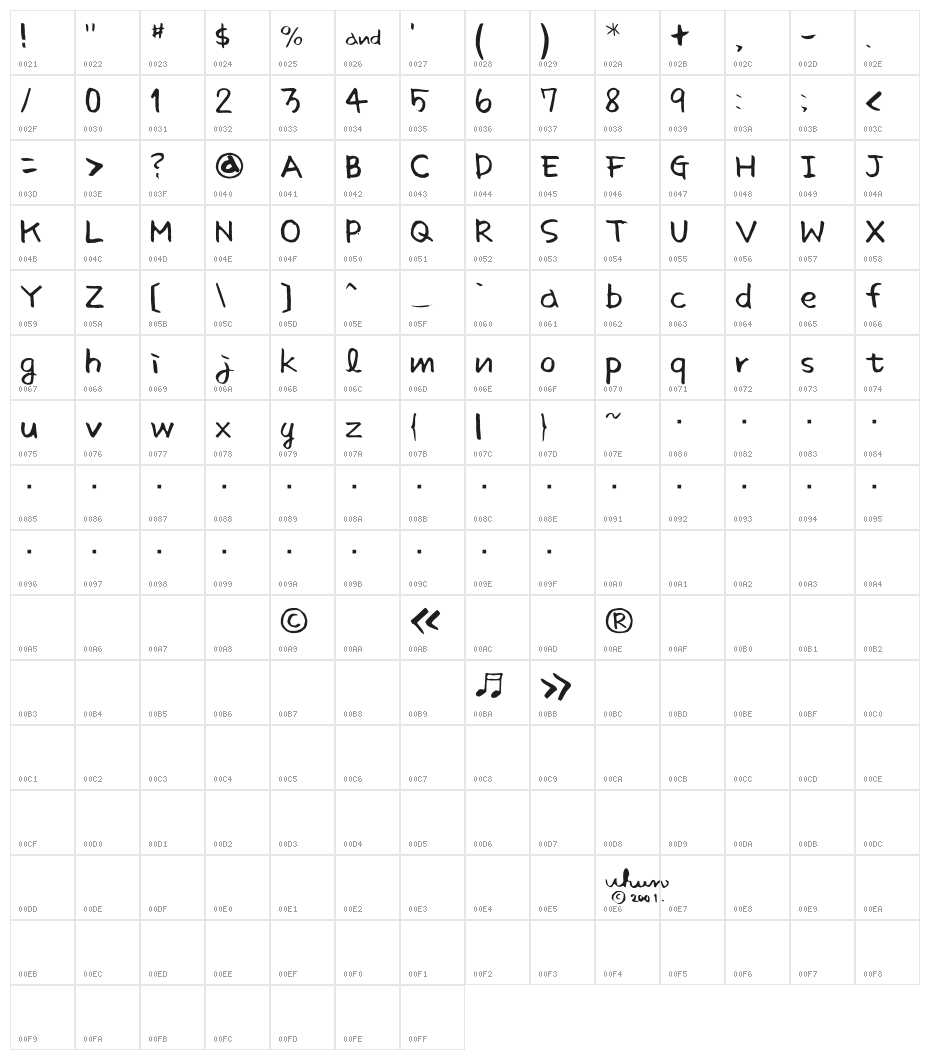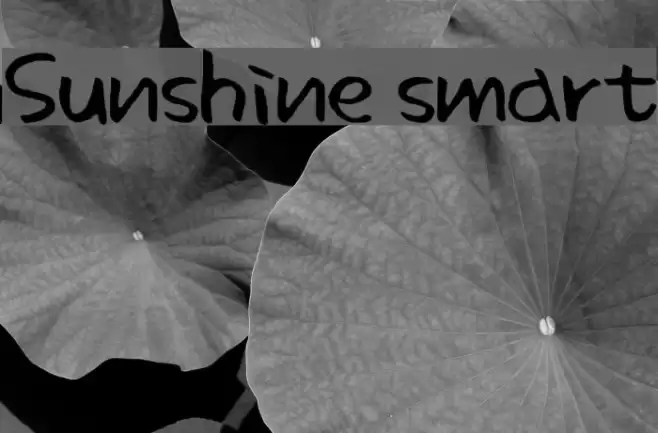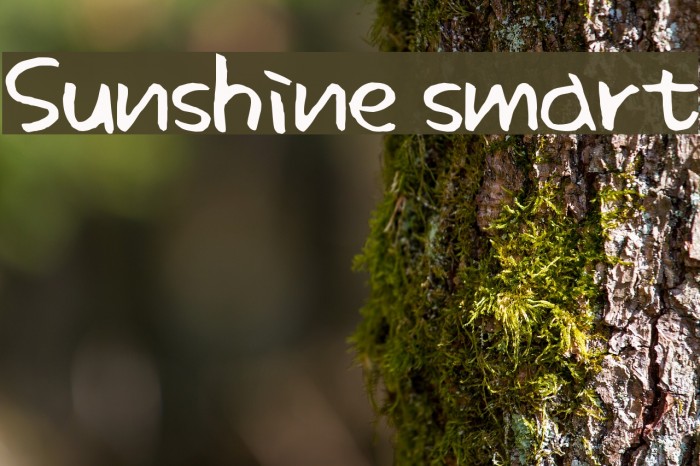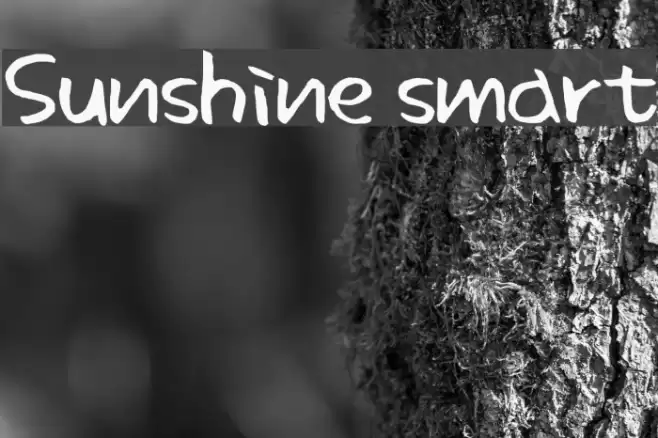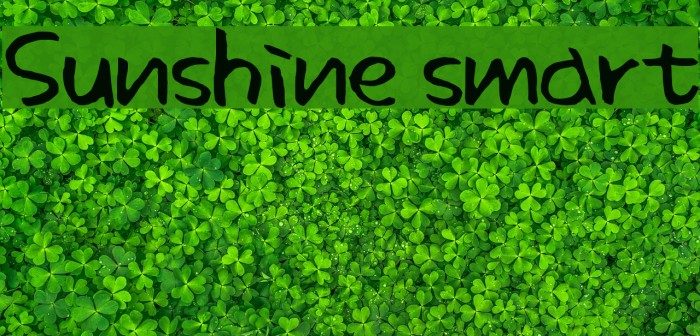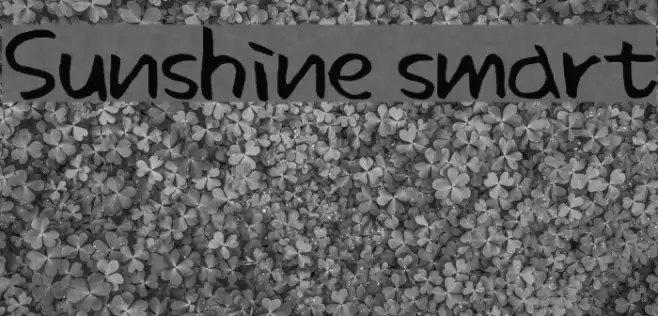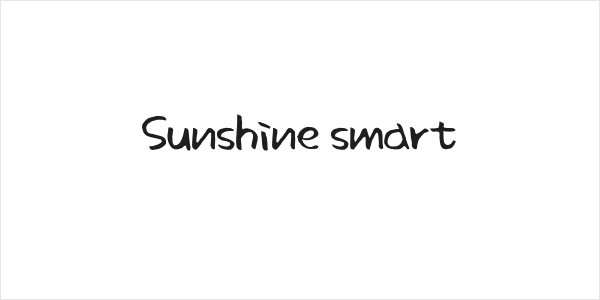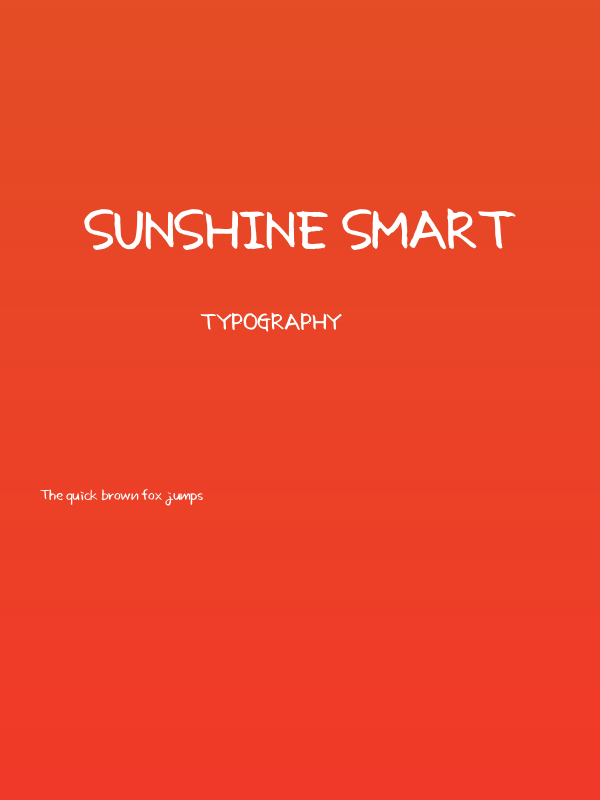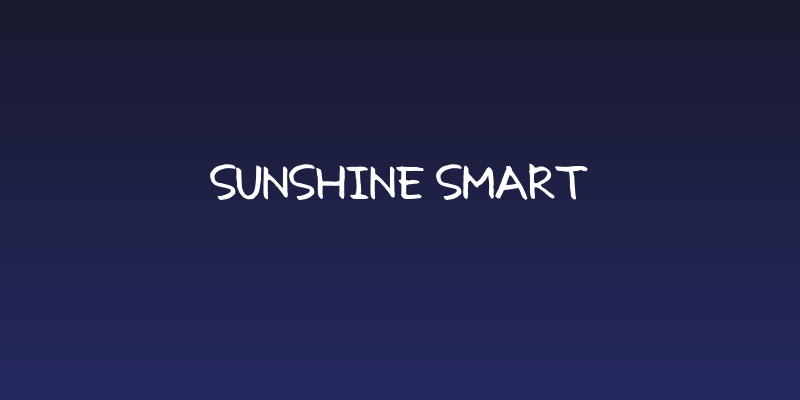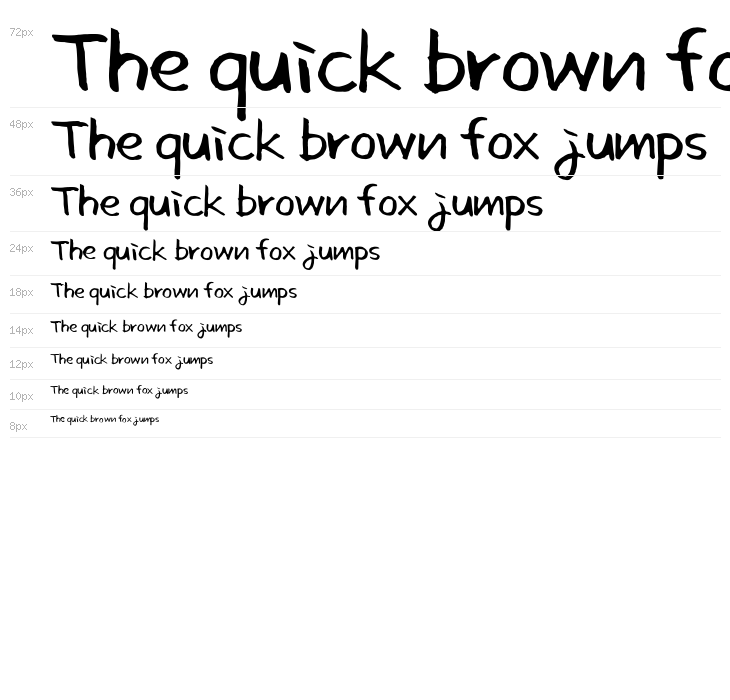
Sunshine smart Font
Sunshine smart Description
This font exudes a playful and informal vibe, characterized by its hand-drawn appearance. The letters are slightly irregular, giving it a casual and approachable feel. The strokes are uneven, with varying thickness that adds to its charm. The uppercase and lowercase letters maintain a consistent style, while the numerals and special characters complement the overall look. This font is perfect for projects that require a personal touch, such as invitations, greeting cards, or children's book covers. Its unique style makes it stand out, while still being legible and versatile.
| Proposed Projects | Ideal for invitations, greeting cards, children's book covers, and any project needing a personal touch. |